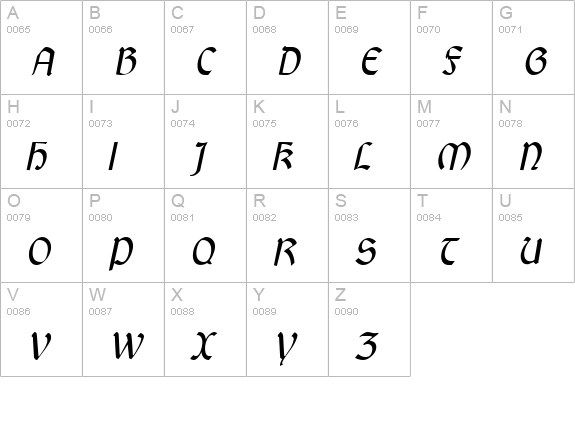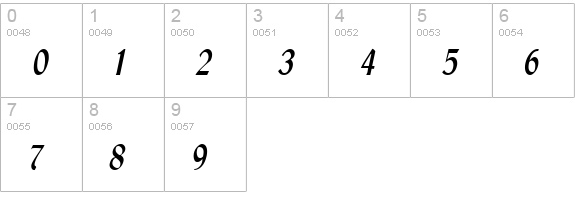
GaelicCondensed Italic Font Details
GaelicCondensed Italic is a distinctive, italic variant in the GaelicCondensed typeface family \xE2\x80\x94 well suited to design and typography projects.
GaelicCondensed Italic font is a captivating and elegant typeface that effortlessly combines traditional Gaelic calligraphy with a modern twist. Its slender and graceful letterforms exude a sense of sophistication and timeless beauty, making it the perfect choice for any project that requires a touch of Celtic charm. The GaelicCondensed Italic font boasts a unique and enchanting style that is sure to captivate the reader's attention. Its slanted and curved letterforms add a sense of dynamic movement, while still maintaining a sense of readability and legibility. This font is ideal for headlines, logos, book covers, invitations, and any other design project that calls for a touch of Celtic authenticity. What sets GaelicCondensed Italic font apart is not only its striking aesthetics but also its versatility. It effortlessly adapts to any design concept or theme, seamlessly integrating into both traditional and contemporary designs. Whether you're creating a vintage-inspired poster or a sleek and modern website, this font will elevate your project to new heights. One of the greatest advantages of GaelicCondensed Italic font is that it is freely available to download at FontsMarket.com. This means that you can instantly enhance your design arsenal without having to spend a penny. Its availability in a condensed style also allows for more flexibility in terms of layout and design, making it a valuable asset for any designer or creative professional. Embrace the allure of GaelicCondensed Italic font and let its timeless beauty and versatility elevate your designs to new heights. Download it now for free at FontsMarket.com, and embark on a journey of creativity and visual excellence.